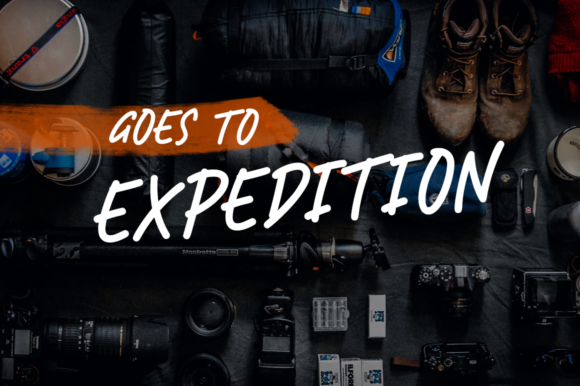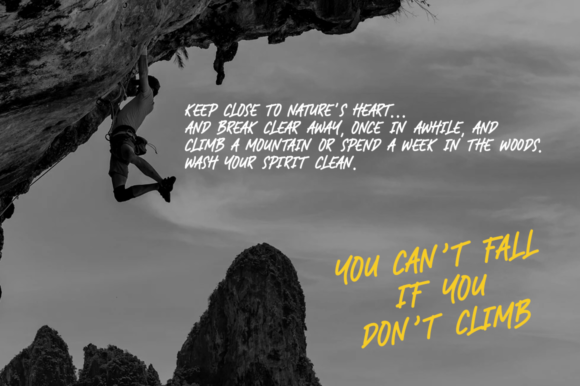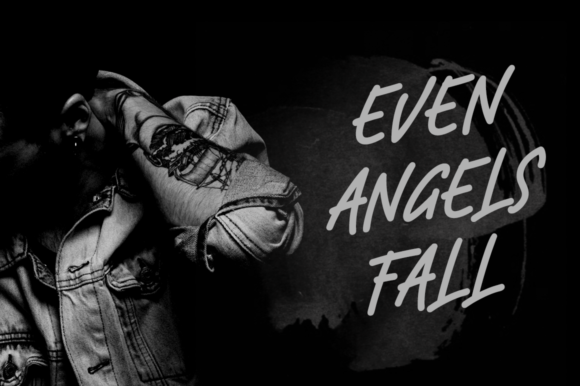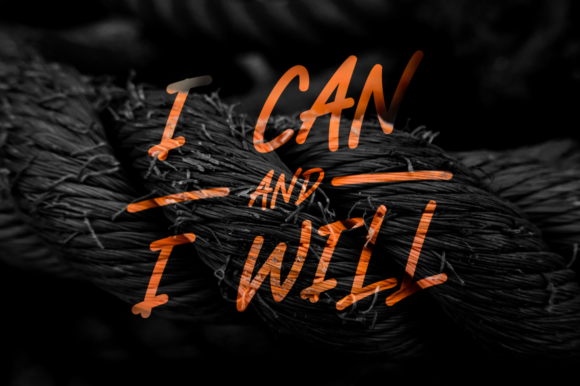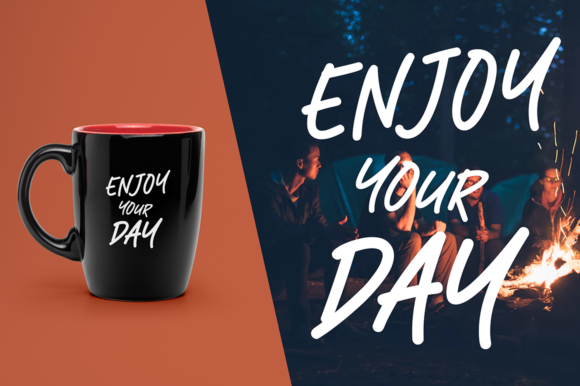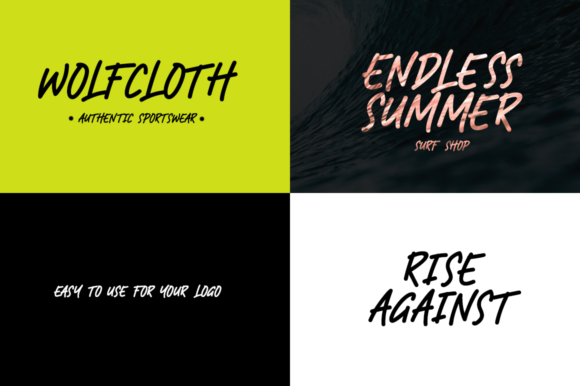
Introduction to RAMPHOX Font
RAMPHOX strong display font.
With extra attention to fast and straightforward streaks, RAMPHOX is guaranteed to deliver hard and fast messages for logos, clothing, quotes, product packaging, or anything that requires a turbo typographic boost .
Key Features of RAMPHOX Font
Why Choose RAMPHOX Font?
RAMPHOX Font offers exceptional quality and versatility, making it a valuable addition to your design toolkit. Whether you’re creating for personal projects or commercial use, RAMPHOX Font delivers professional results.